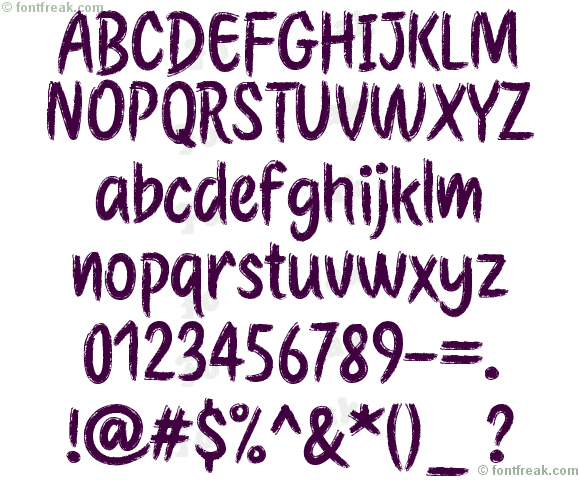
Etchas
Etchas Italic
About Etchas
Etchas, designed by Situjuh Nazara in 2017, is a captivating display font that offers a unique blend of artistic flair and contemporary style. This font falls under the decorative category, characterized by its hand-drawn appearance, which adds a touch of individuality to any project. The strokes of the Etchas font are uneven and varied in weight, creating a dynamic and textured feel that is both engaging and visually compelling. Its italicized form enhances the sense of movement, making it ideal for designs that require a lively and creative touch.
The spacing in Etchas is well-balanced, allowing for legibility while still maintaining that eye-catching aesthetic. The decorative elements of the font, including its playful curves and expressive strokes, contribute to its distinctive identity. These features make Etchas particularly suited for a variety of applications, including wedding invitations, where its artistic style can convey elegance and charm. Additionally, it works well for movie posters, giving a quirky yet sophisticated vibe. Restaurant menus can benefit from the font’s unique character, creating an inviting atmosphere for diners. Content creators and graphic designers will find it a great choice for social media graphics and promotional materials, as it attracts attention and engages the audience effectively.
Targeting graphic designers, small business owners, and content creators, Etchas invites users to explore its creative potential. The Etchas font free download makes it accessible for anyone looking to enhance their projects with a fresh and artistic typeface. What sets Etchas apart is its ability to effortlessly blend creativity with functionality, making it a versatile choice for those who want to make a memorable impression. Whether you’re crafting an invitation or designing promotional content, Etchas provides a unique touch that elevates your work.